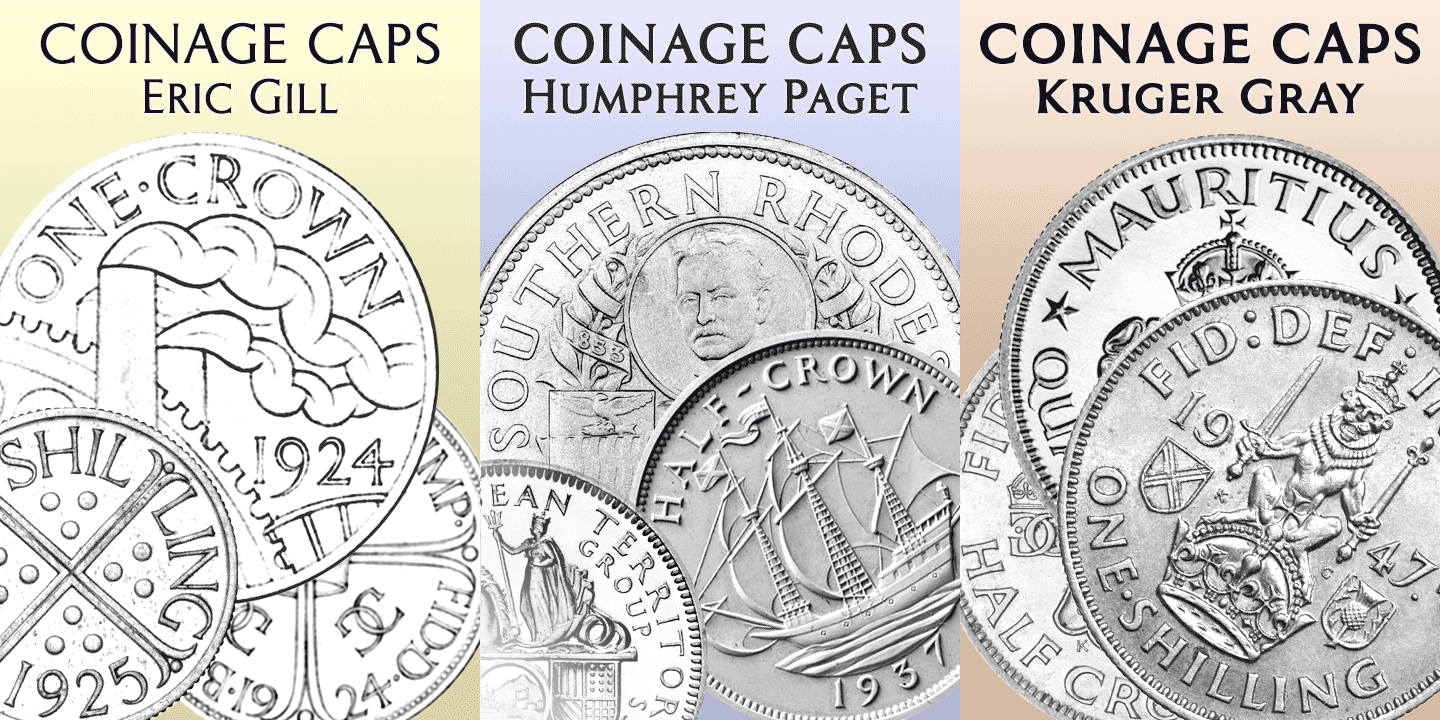
Coinage Caps Font is ideal for financial institutions, cryptocurrency platforms, precious metals dealers, investment firms, banking services, numismatic societies, mint operations, and monetary organizations that require authoritative typography with fiscal gravitas and monetary sophistication that communicates financial stability and economic authority.
What makes Coinage Caps Font exciting is its exceptional ability to embody monetary authority and financial prestige through letterforms inspired by traditional coin inscriptions and currency design. This distinguished typeface features engraved characteristics and institutional weight that evoke the solidity of precious metals and the trustworthiness of established financial institutions, making it perfect for brands dealing with money and value.
The Coinage Caps Font family includes light, regular, medium, and bold weights, complemented by small caps and numeral variations for financial applications. Each style maintains the font's characteristic monetary authority while providing designers with comprehensive tools for creating trustworthy layouts and financial brand communications that inspire confidence in monetary transactions.
Financial professionals consistently choose Coinage Caps Font Free Download for projects requiring monetary credibility and institutional authority. This versatile typeface seamlessly conveys financial stability while maintaining excellent readability, ensuring brand messages resonate with audiences seeking secure financial services and trustworthy investment opportunities from established institutions.
The font's monetary heritage and institutional character make it particularly suitable for banking and investment sectors. Coinage Caps Font delivers exceptional financial impact while ensuring clear communication, offering designers a prestigious solution for creating memorable brand identities that communicate stability, authority, and monetary excellence across financial and investment marketing applications.